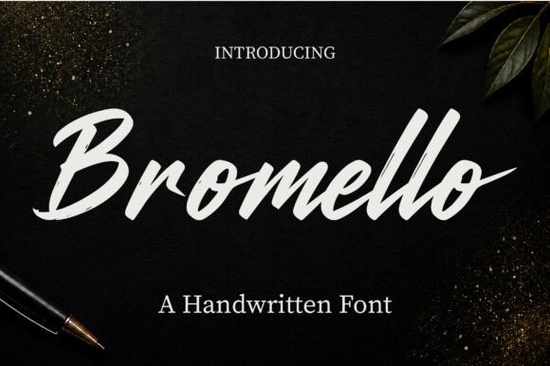
If you're looking for a font that combines the warmth of hand lettering with a clean, professional finish, the Bromello Font is worth a close look. This modern handwritten script font features smooth, flowing curves that give your text a natural, almost human touch. It sits comfortably between formal calligraphy and casual handwriting, making it a versatile choice for all kinds of design work – from brand logos and wedding invitations to social media graphics and product packaging.
What makes a handwritten script font like Bromello suitable for branding?
Script fonts can add personality to a brand, but only if they remain legible and consistent. Bromello strikes that balance by keeping its letterforms clear while still feeling handcrafted. The smooth transitions between strokes create a rhythm that feels easy to read, even in shorter headlines or logo text. Many designers use script fonts like this to soften a brand’s identity or to add an approachable, artisan feel. Whether you're working on a coffee shop logo or a boutique label, a well-made script font can help your design stand out without screaming for attention.
Projects where Bromello shines
- Wedding invitations and stationery – The elegant loops and natural flow give a romantic, personal feel to save-the-dates and thank-you cards.
- Social media graphics – Quotes, announcements, and Instagram stories look more engaging when the typography feels hand-drawn.
- Packaging and product labels – Handmade soaps, candles, or small-batch foods benefit from the artisanal vibe of a script font.
- T‑shirt and apparel designs – Short phrases or brand names printed in a script style often catch the eye more than standard block letters.
- Logos and brand marks – Bromello’s smooth curves work well as a standalone wordmark or paired with a clean sans-serif for contrast.
How does Bromello compare to other script fonts?
Every script font has its own personality – some are bouncy and playful, others are refined and delicate. Bromello sits in the middle: not too casual, not too formal. If you want to explore similar styles, you can check out the Solivara hand lettering style for its slightly more ornate look. On the other hand, the The Skinny Font offers a lighter, more airy feel that works well for minimalist branding. For bolder, more expressive projects, the Falley font family brings a modern brush-lettering energy. And if you need a straight‑forward, everyday script, the Zero Beyond script keeps things simple and readable. Another option worth considering is the Hello font set, which has a friendly, down‑to‑earth tone perfect for children’s products or craft labels.
Each of these fonts has its own weight, slant, and decorative details, so you can match the exact mood of your project. For example, Bromello’s consistent baseline and moderate contrast make it a safe choice for longer quotes, while Falley is better for short, punchy headlines. Zero Beyond works well when you need a script that doesn’t dominate the design, and Hello is ideal for warm, invitation‑style text.
Practical checklist for choosing and using a script font
- Test legibility at different sizes – A font that looks beautiful in a headline may become hard to read in a paragraph. Reduce the size and check if the letters stay distinct.
- Pair with a simple sans-serif – Many professional designs combine a script font for the display text with a clean, neutral font for body copy.
- Check the character set – Make sure the font includes the punctuation, numbers, and special characters you need (like accented letters for multilingual projects).
- Look for alternates and ligatures – Some script fonts come with alternate letters or automatic ligatures that make the text look more natural. Bromello includes a set of standard ligatures to avoid awkward letter combinations.